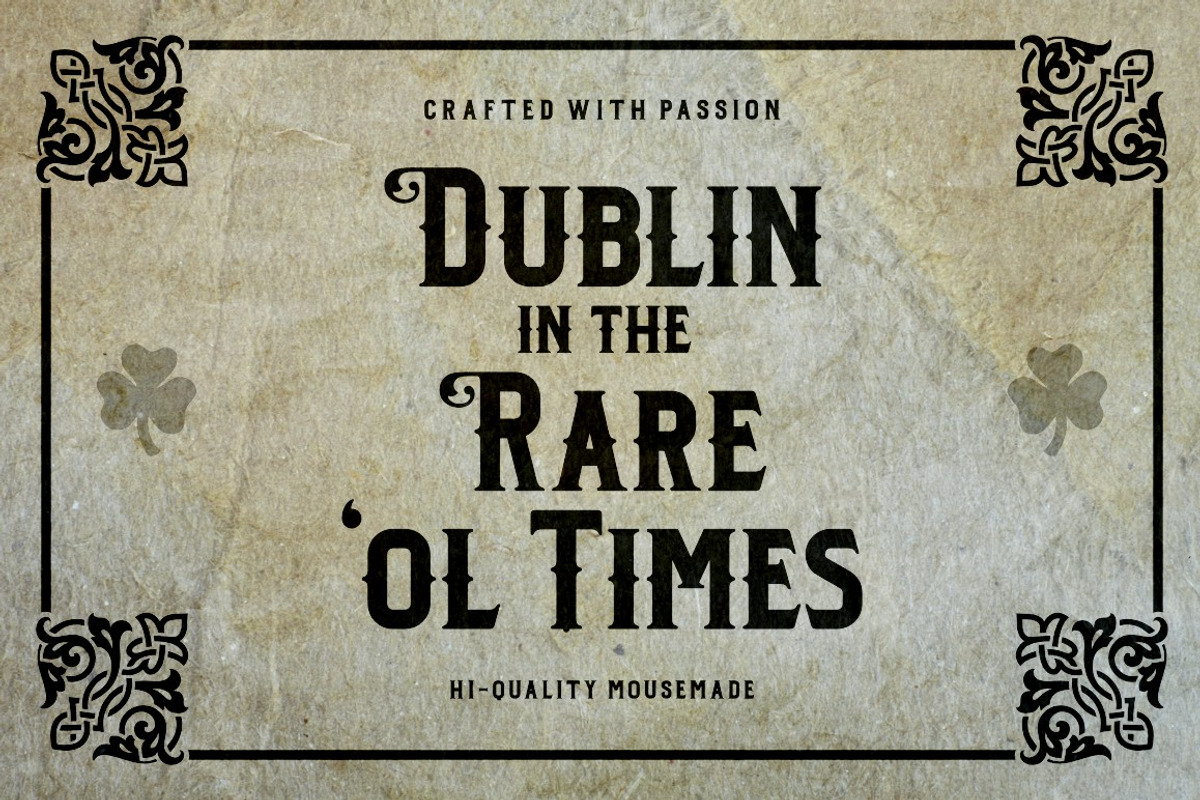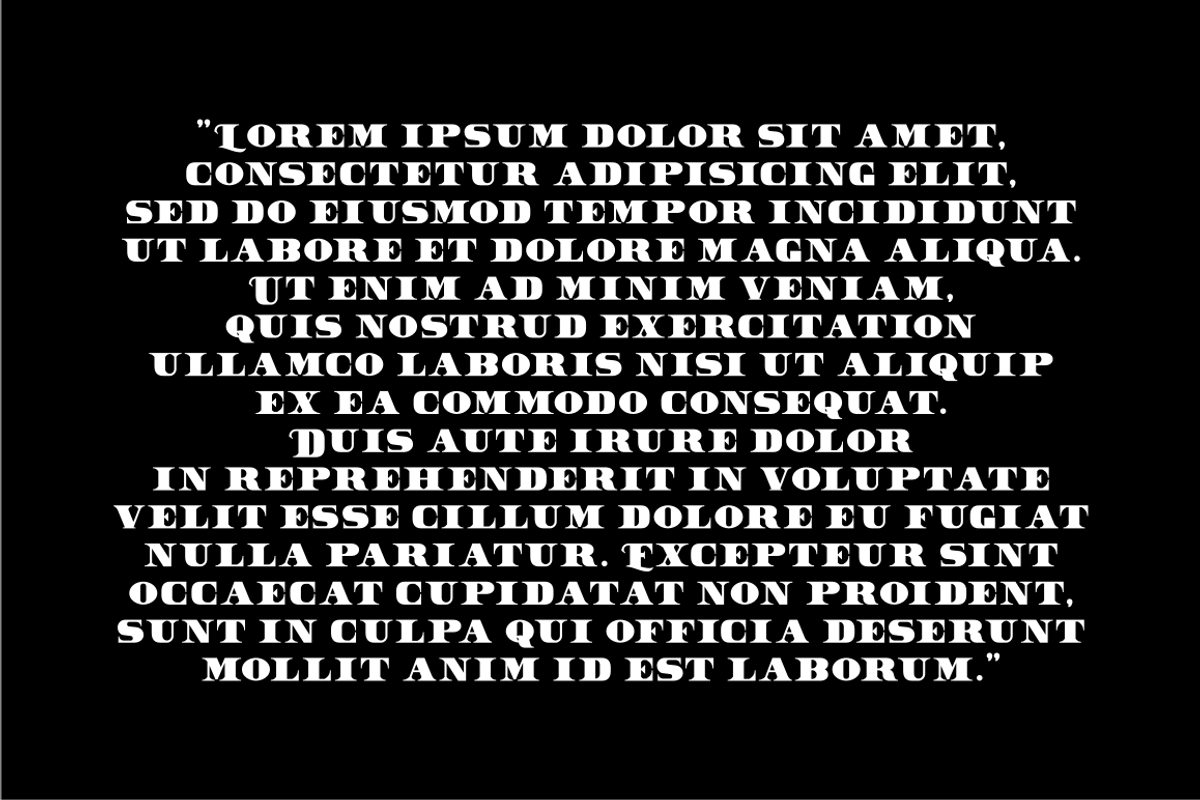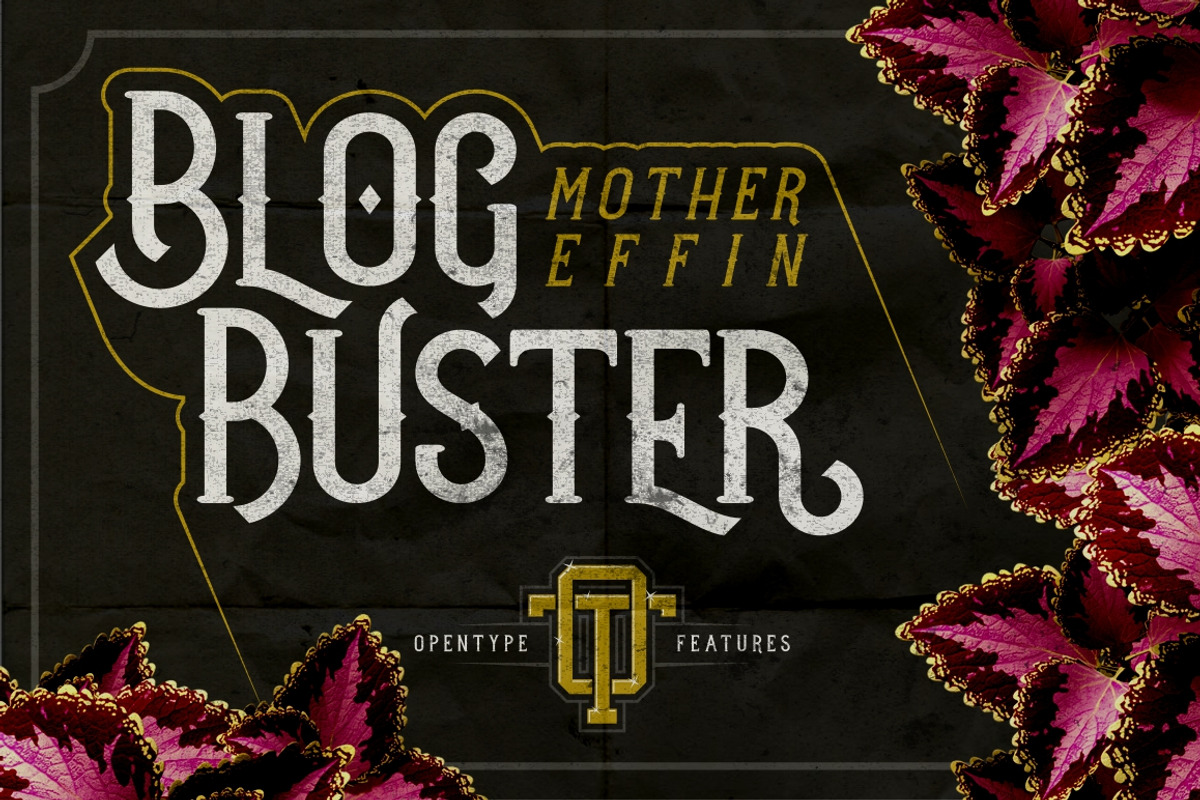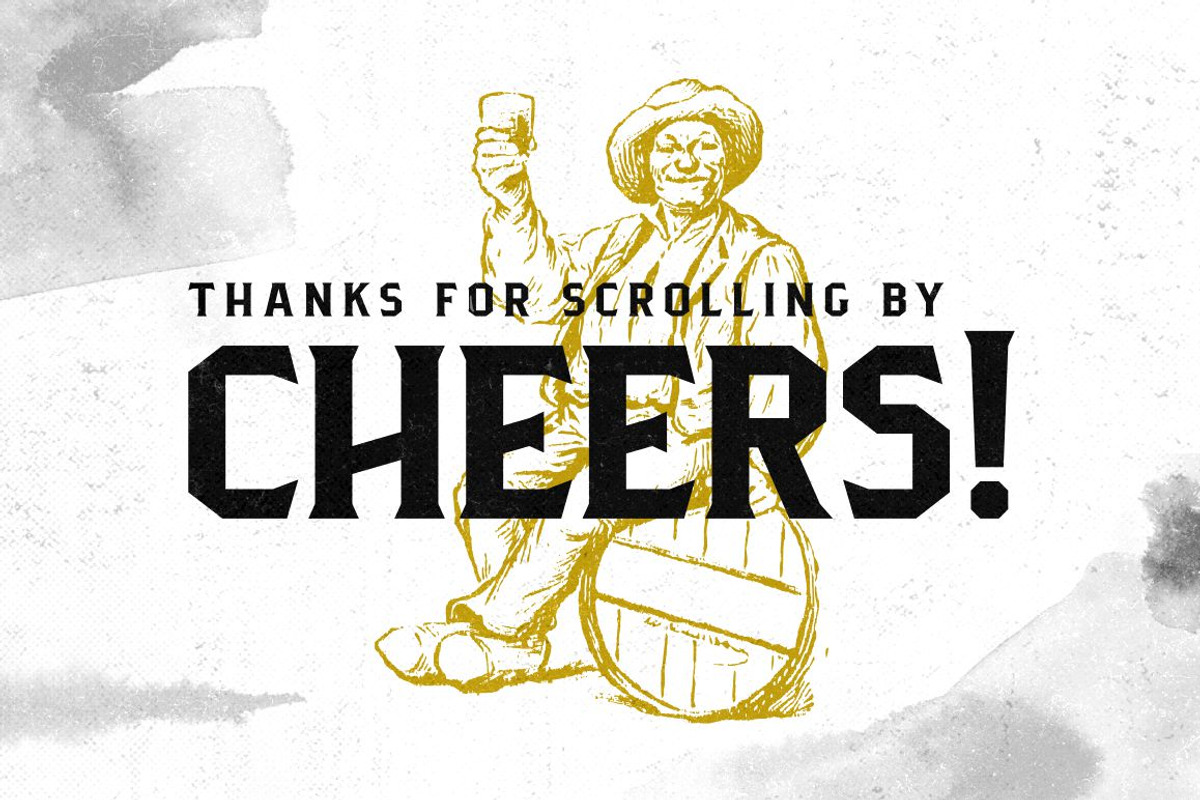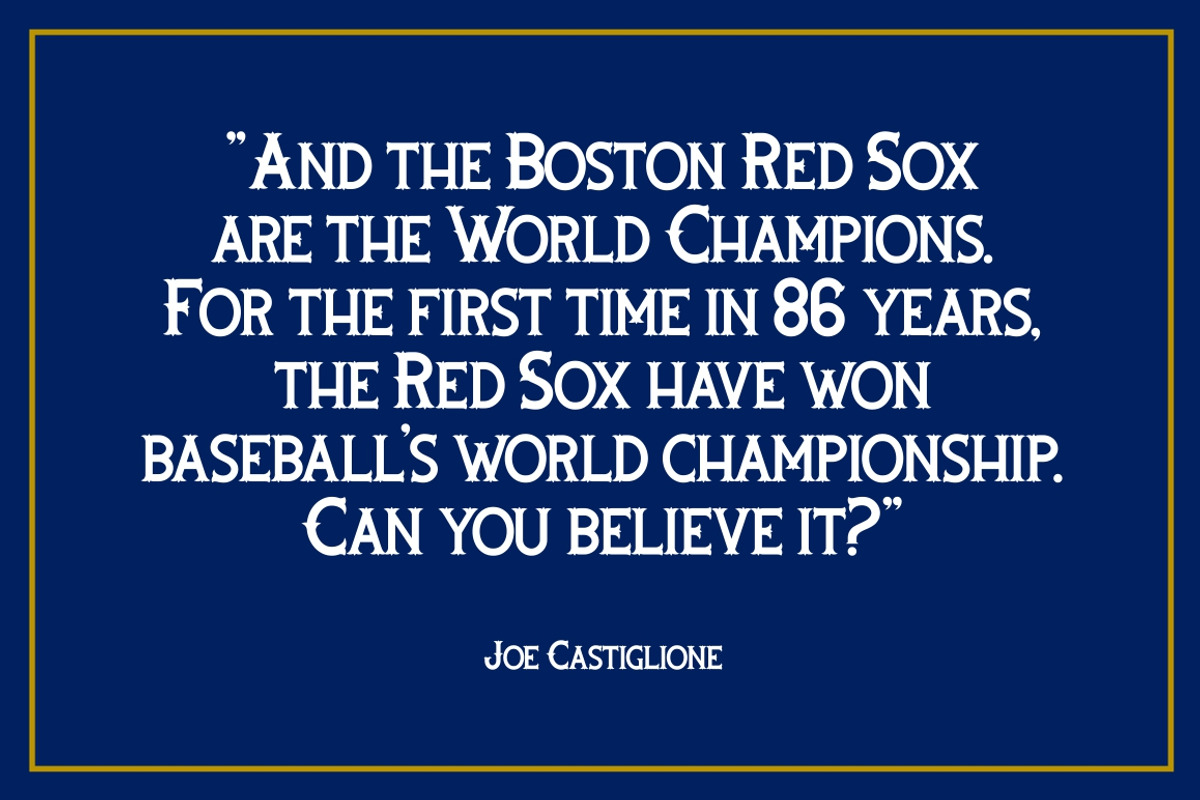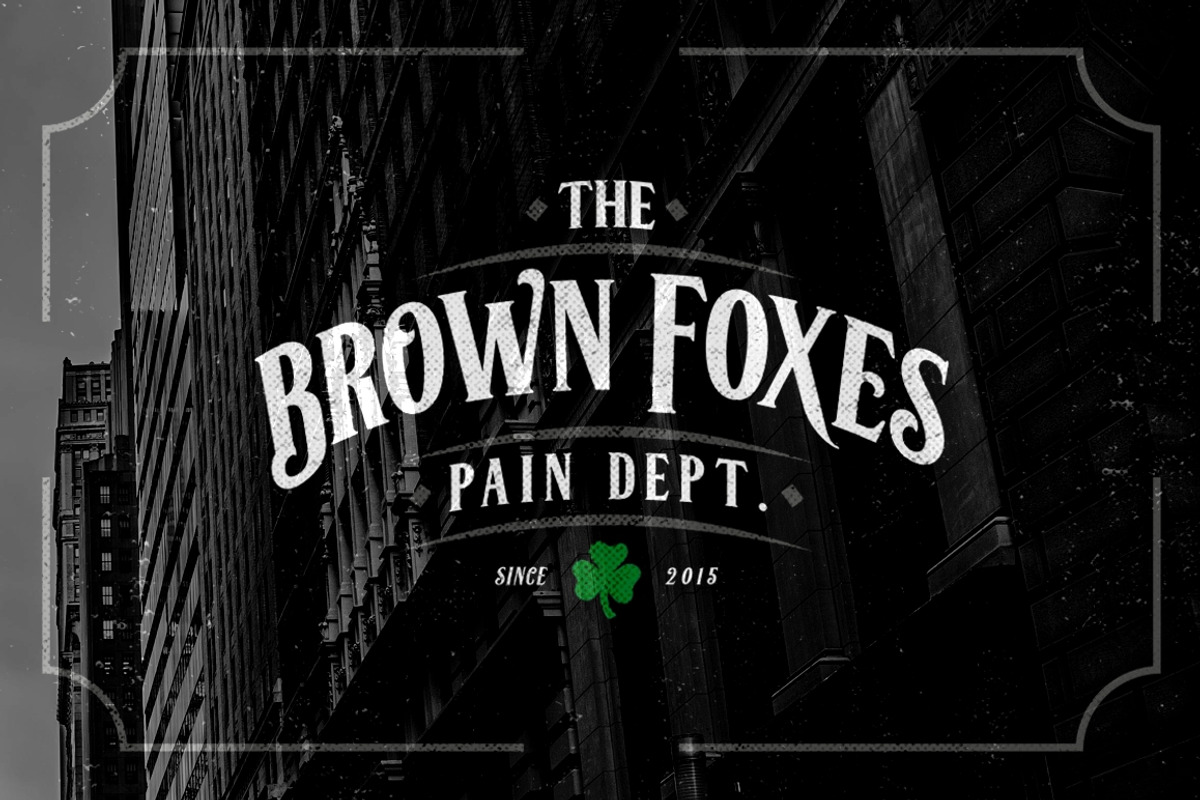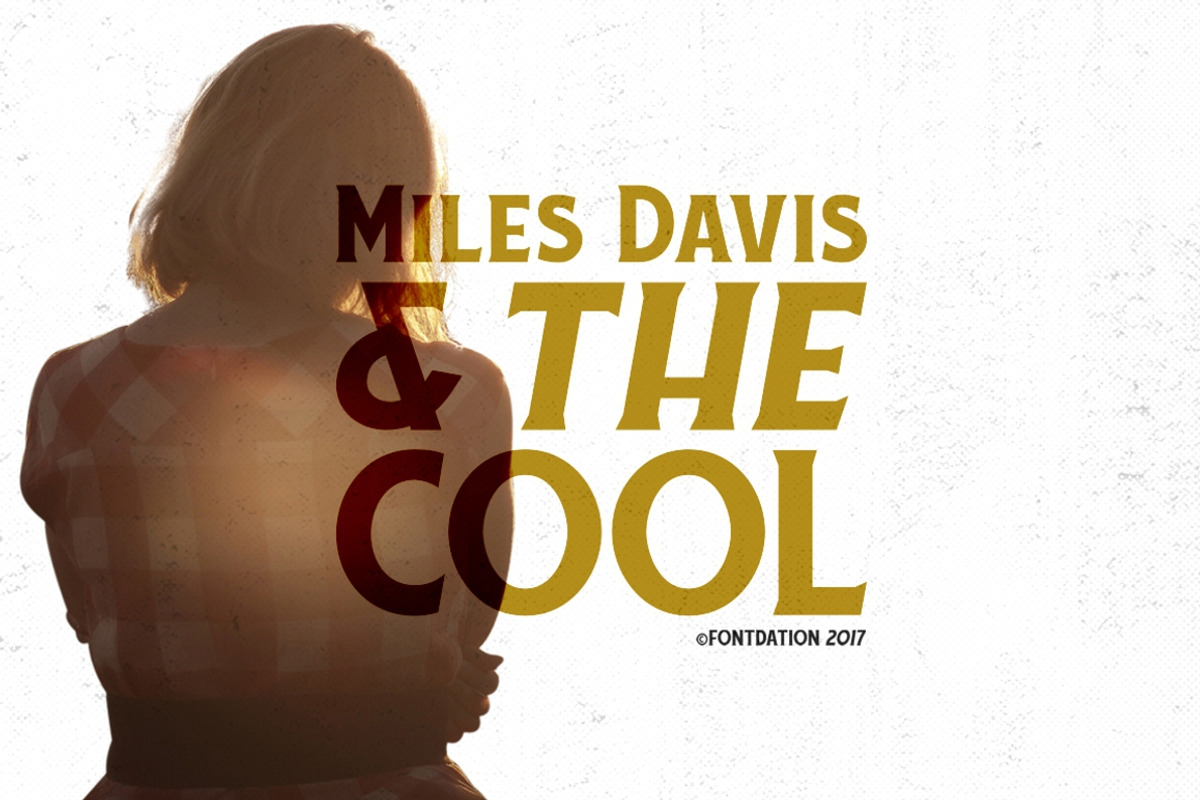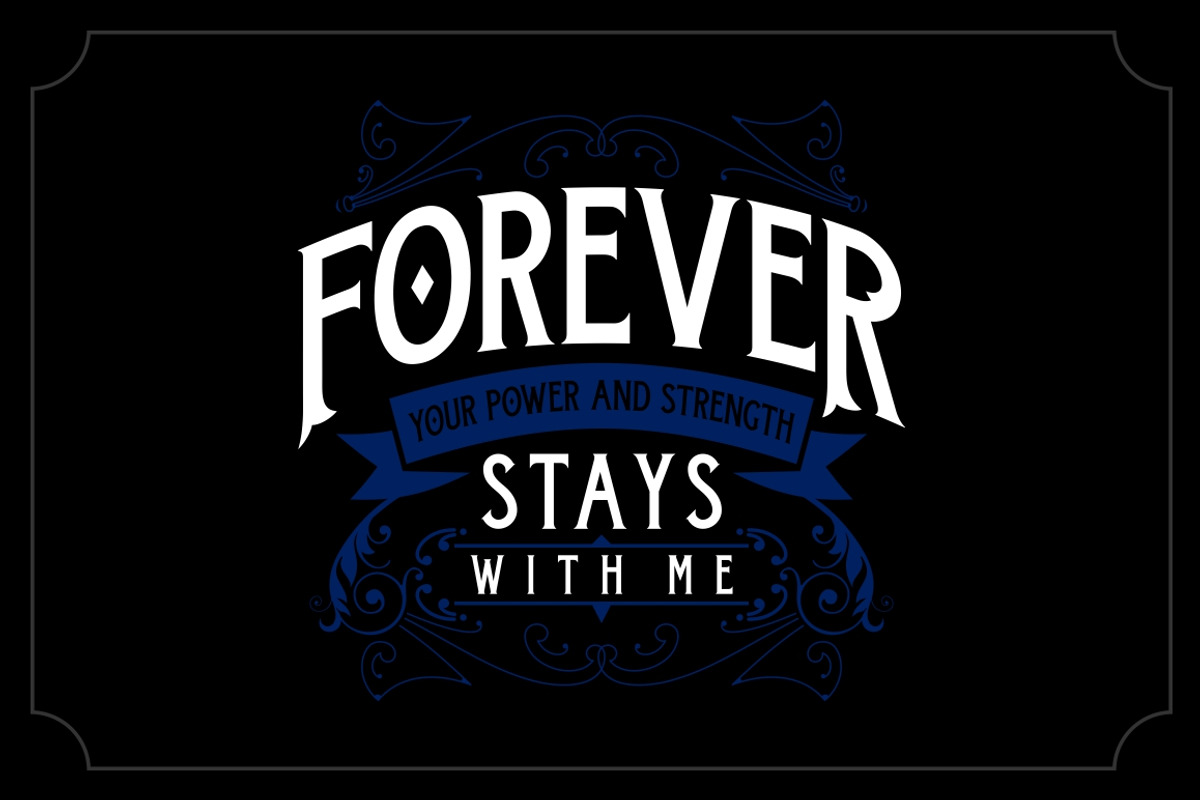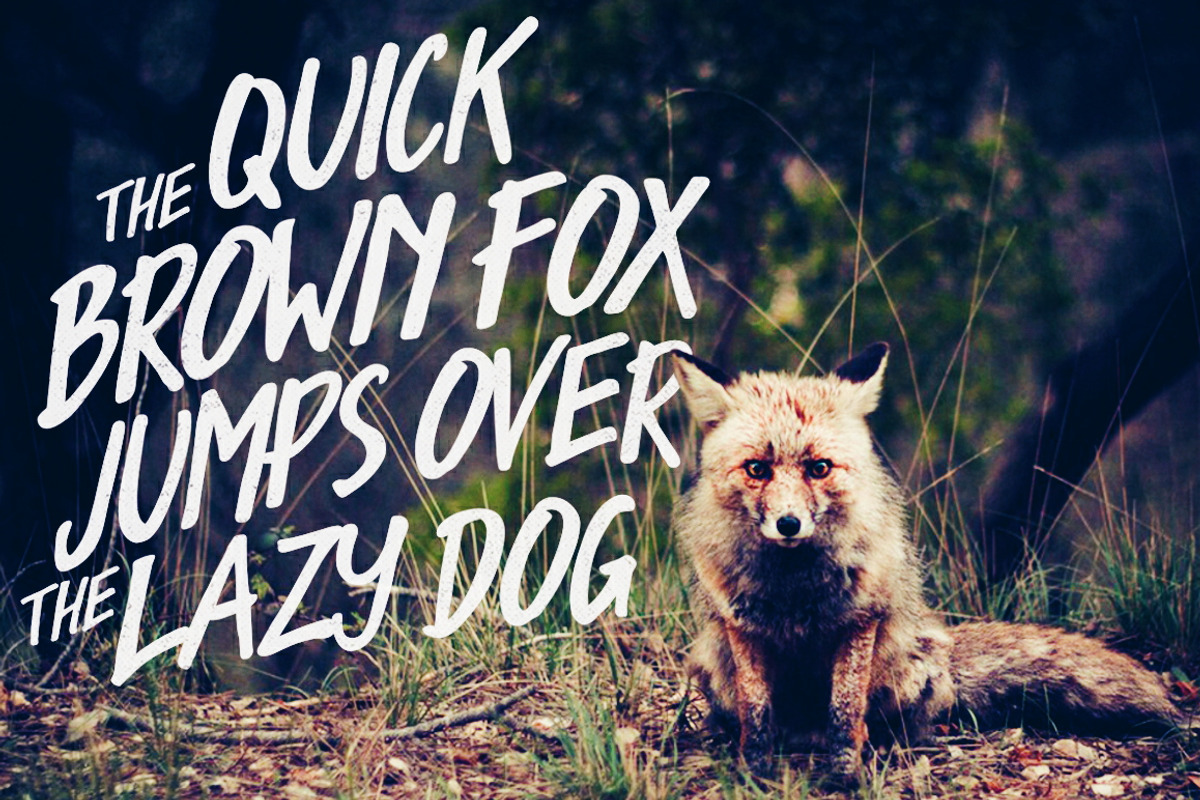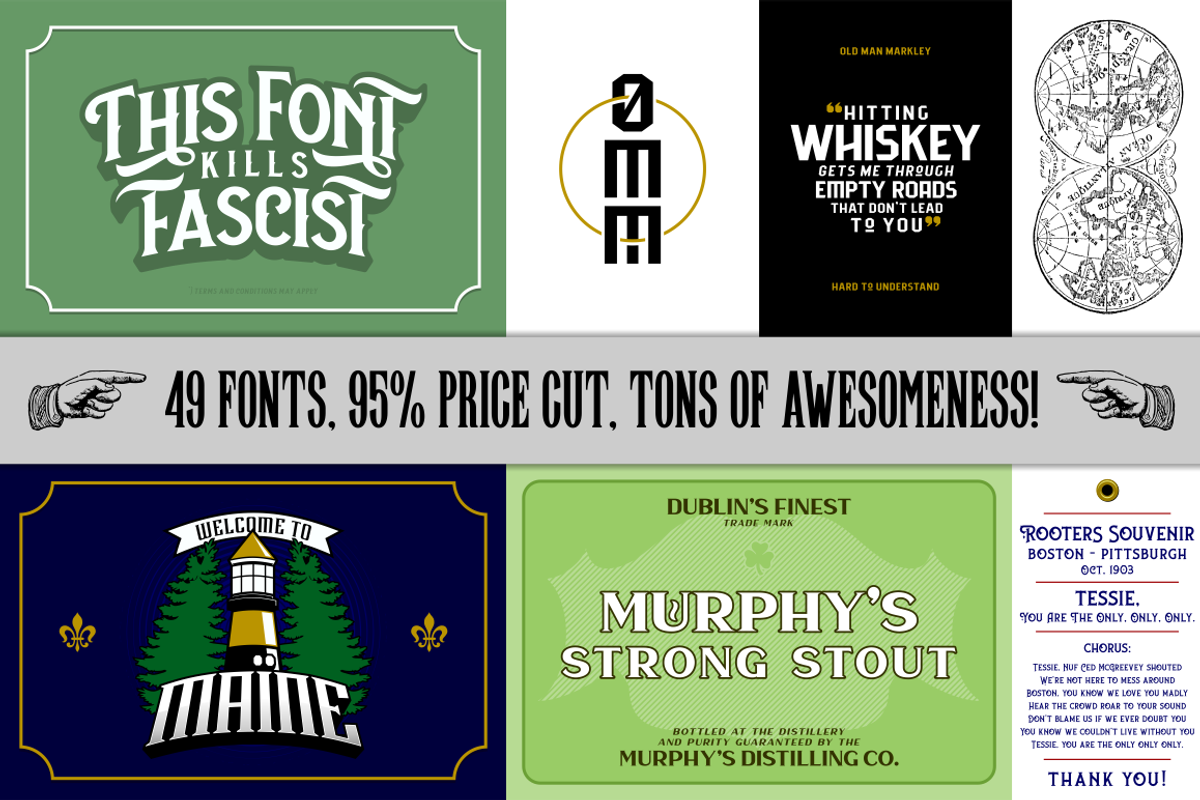
Vintage Font Bundle | 49 Fonts in 1
2018 been a great year for us, to celebrate the end of this awesome year, we're giving you a surprise. Yes! Finally, we're jumping into the bundle bandwagon too. So, here's our Vintage Font Bundle! (drum rolls)
Enjoy this bundle of our 49 vintage fonts. This bundle gives you various versatile fonts, suits best for your vintage/classic designing projects. Normal price for these fonts are at around $320, but with this bundle, you'll only have to pay $17, THAT'S 95% OFF! All of them are packed with some nice OpenType Features, such as: Alternate Chars, Stylistic Sets, Ligatures, Swashes, etc, gives you room to explore the awesomeness on every fonts.